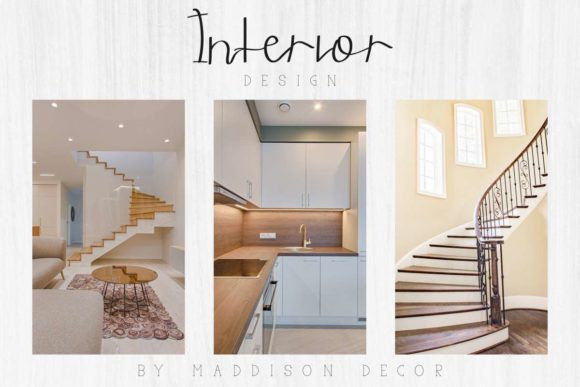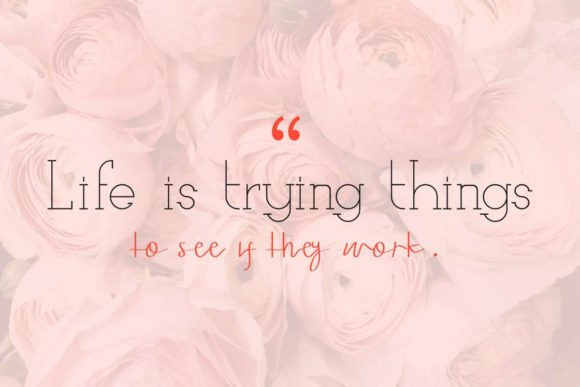
Ariesta Moon Font
Ariesta Moon duo is a match made in heaven, the authentic glyphs of the script perfectly complement the serif version’s style. Combining these two fonts on your next design will give your next design a playful and elegant feel.